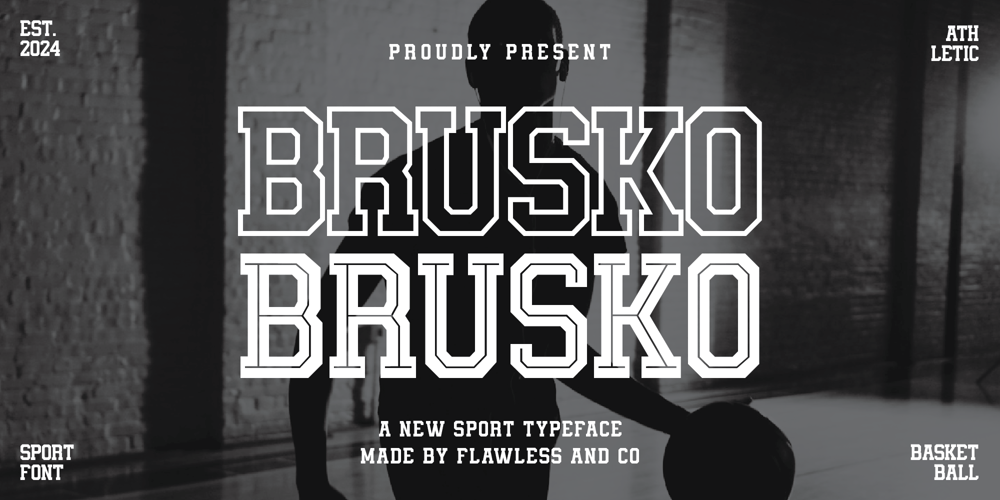
Brusko Font Family was designed by Achmad Yani and published by Flawlessandco. Brusko contains 2 styles and family package options. Introducing “Brusko,” a sports basketball font designed to capture the dynamic energy and excitement of the game. With its bold and athletic letterforms, Brusko is perfect for sports branding, team jerseys, posters, basketball events, and more, ensuring your designs stand out with a powerful and energetic presence.There’s some connected letters and some alternates that suitable for any graphic designs such as branding materials, t-shirt, print, business cards, logo, poster, t-shirt, photography, quotes .etcThis font support for some multilingual. Also contains uppercase A-Z and lowercase a-z, alternate character, numbers 0-9, and some punctuation.If you need help, just write me! Thanks so much for checking out my shop!